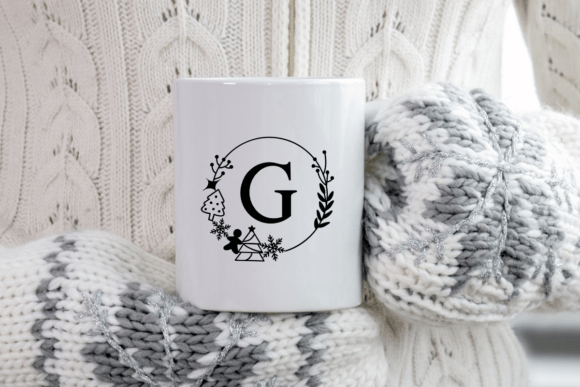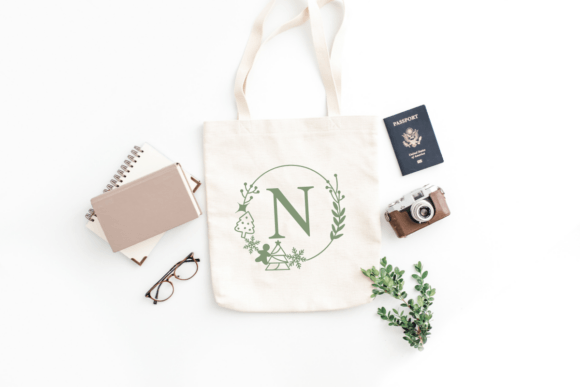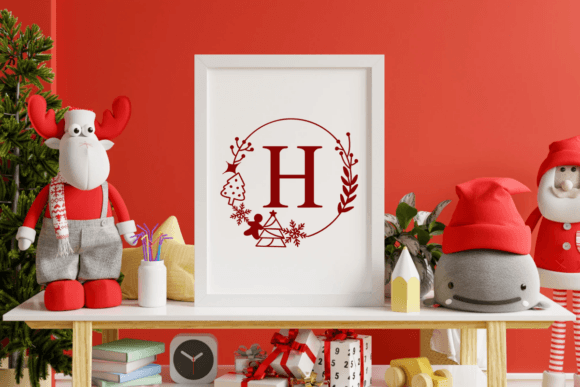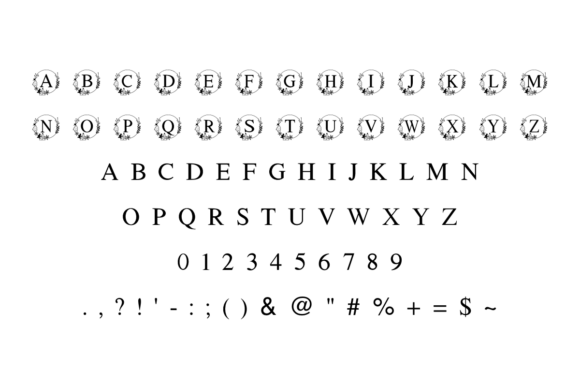
Introduction to Holly Wreath Font
Holly Wreath is a decorative monogram font featuring festive, holiday-themed frames around each letter.
Perfect for adding a joyful, seasonal touch to initials or holiday greetings .
Key Features of Holly Wreath Font
Why Choose Holly Wreath Font?